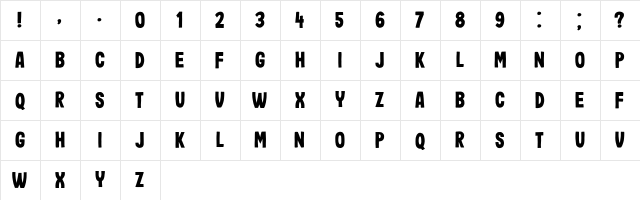
Impressum Regular
Design Context for Impressum Typeface
Impressum takes a measured approach to typography — its balanced proportions and neutral character make it a reliable workhorse for both digital and print work.
Pro Tip: Pair Impressum with a font of contrasting weight or personality to build a more expressive typographic hierarchy.